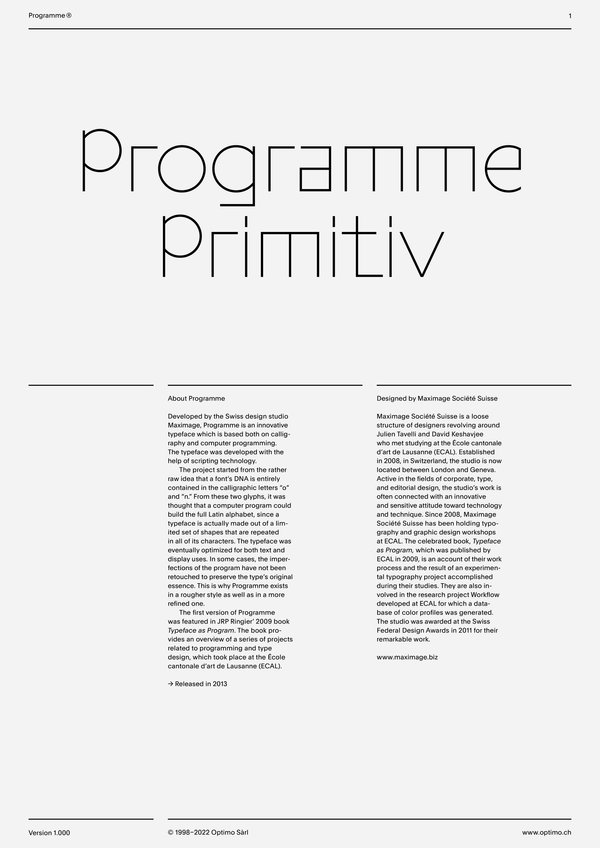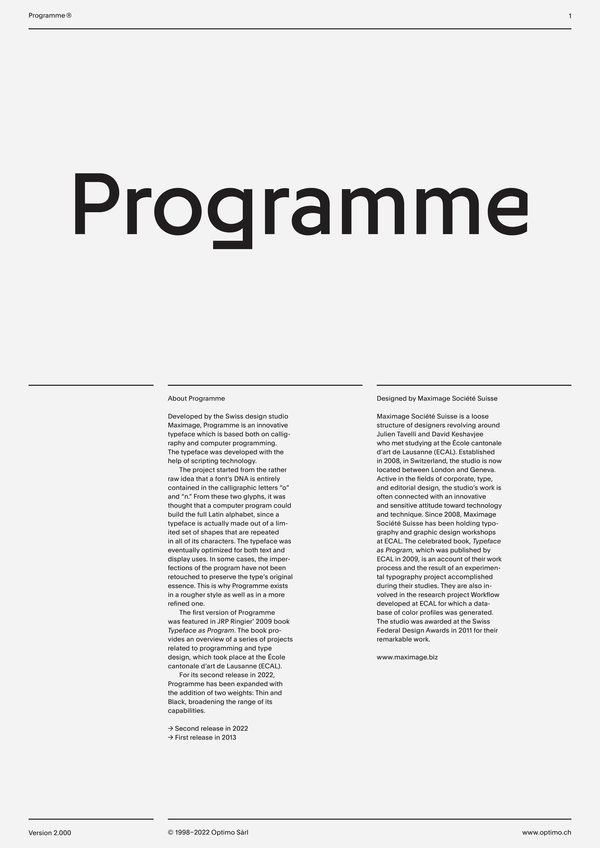
Programme
Contextual Alternates
Contextual Alternates [calt]
This feature adapts the position of a glyph after its surrounding context. For instance, a dash placed between two uppercase letters or numbers will be replaced by an uppercase version of the dash, slightly higher. This feature is usually active by default in Adobe applications.
Classic Alternate letters and symbols
Stylistics Set [ss01]
This feature replaces glyph(s) with stylistic alternate(s).
Geometric alternate letters and symbols
Stylistics Set [ss02]
This feature replaces glyph(s) with stylistic alternate(s).
Alternate a
Stylistics Set [ss07]
This feature replaces glyph(s) with stylistic alternate(s).m
Alternate e
Stylistics Set [ss08]
This feature replaces glyph(s) with stylistic alternate(s).
Alternate f g j t J
Stylistics Set [ss09]
This feature replaces glyph(s) with stylistic alternate(s).
Alternate h m n r u
Stylistics Set [ss10]
This feature replaces glyph(s) with stylistic alternate(s).
Alternate r
Stylistics Set [ss11]
This feature replaces glyph(s) with stylistic alternate(s).
Alternate G
Stylistics Set [ss12]
This feature replaces glyph(s) with stylistic alternate(s).
Alternate K
Stylistics Set [ss13]
This feature replaces glyph(s) with stylistic alternate(s).
Alternate Q
Stylistics Set [ss14]
This feature replaces glyph(s) with stylistic alternate(s).
Alternate R
Stylistics Set [ss15]
This feature replaces glyph(s) with stylistic alternate(s).
Alternate S
Stylistics Set [ss16]
This feature replaces glyph(s) with stylistic alternate(s).
Alternate U
Stylistics Set [ss17]
This feature replaces glyph(s) with stylistic alternate(s).
Tabular Lining Figures
Tabular Lining Figures [tnum–lnum]
Based on the proportions of the capitals, lining figures have an invariable height. With the combination of the tabular spacing format, the width of each numeral is uniformized. This feature is useful when numerals need to all lined up. It facilitates the reading of numbers set within columns or tables. As some applications don’t have access to this feature, proportional figures are set as the default choice.
Proportional Oldstyle Figures
Proportional Oldstyle Figures [pnum–onum]
Based on the design of the lowercase, oldstyle figures have varying ascenders and descenders. Like most of the letters, each number has an appropriate width based on its shape. The combination of oldstyle figures with proportional setting generate numerals perfectly adapted for text.
Fractions
With this feature, any numbers separated by a slash will automatically turn into a fraction. To fit in fraction configuration, numerals have been designed smaller and their weights have been adjusted to suit the typeface.
Lowercase math symbols
Stylistic Set 6 [ss06]
This feature activates alternate lowercase positioning of mathematical symbols.
This feature replaces any letter following a numeral with its matching superior letters. French language uses the ordinal indicators such as ‘er’ for 1er premier, while Spanish, Portuguese and Italian require the feminine and masculine ordinals ‘a,’ ‘o’ for 1º, 1ª. Ordinals are designed to match the weight of the typeface.